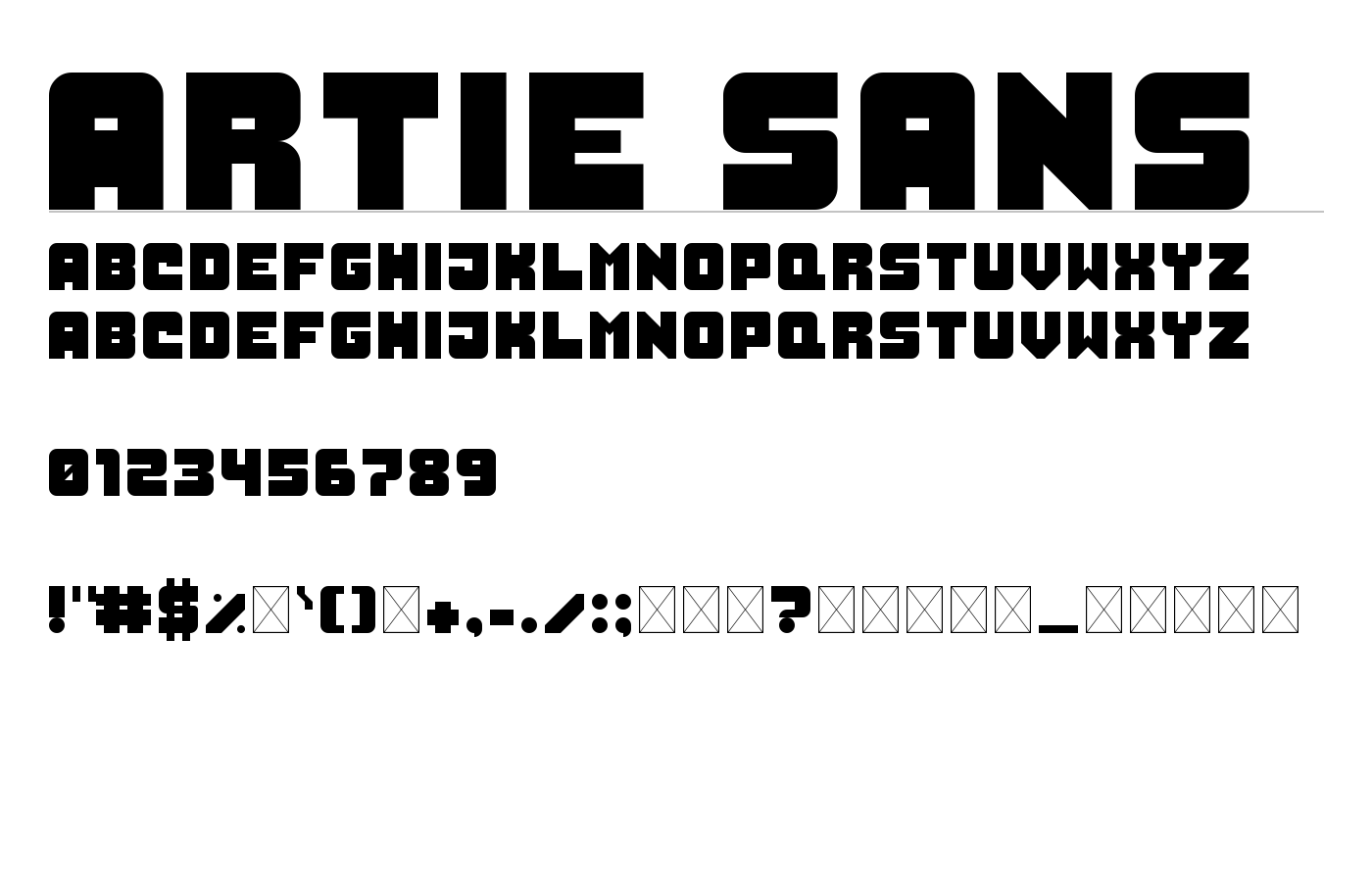
Artie Sans is a bold, geometric sans serif font with a modern, industrial feel. Its thick, blocky letterforms and high x-height give it a strong presence, making it ideal for headlines, logos, and branding projects that need a confident, striking look. This font works well in contexts where a bold, contemporary style is desired to grab attention and convey strength.
Artie Sans Font
About Artie Sans Font
| Font family | Artie Sans Font |
| Designer | Better Handwriting |